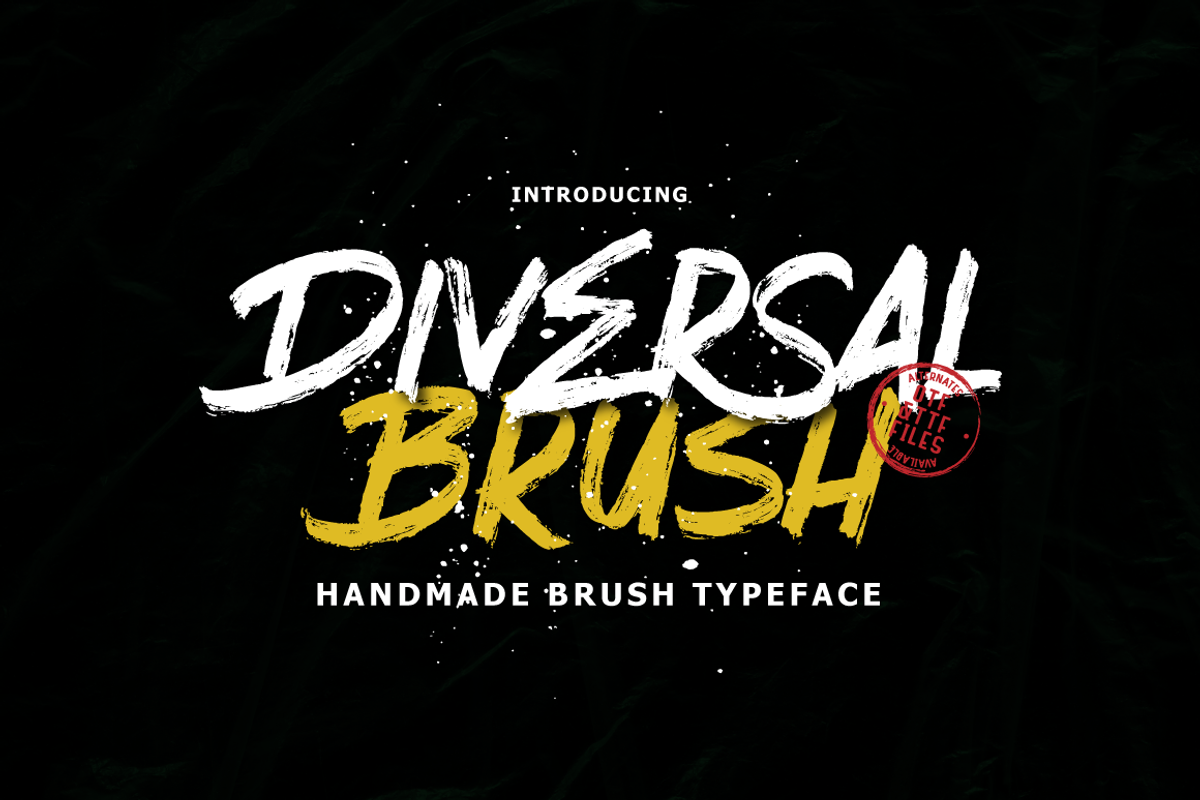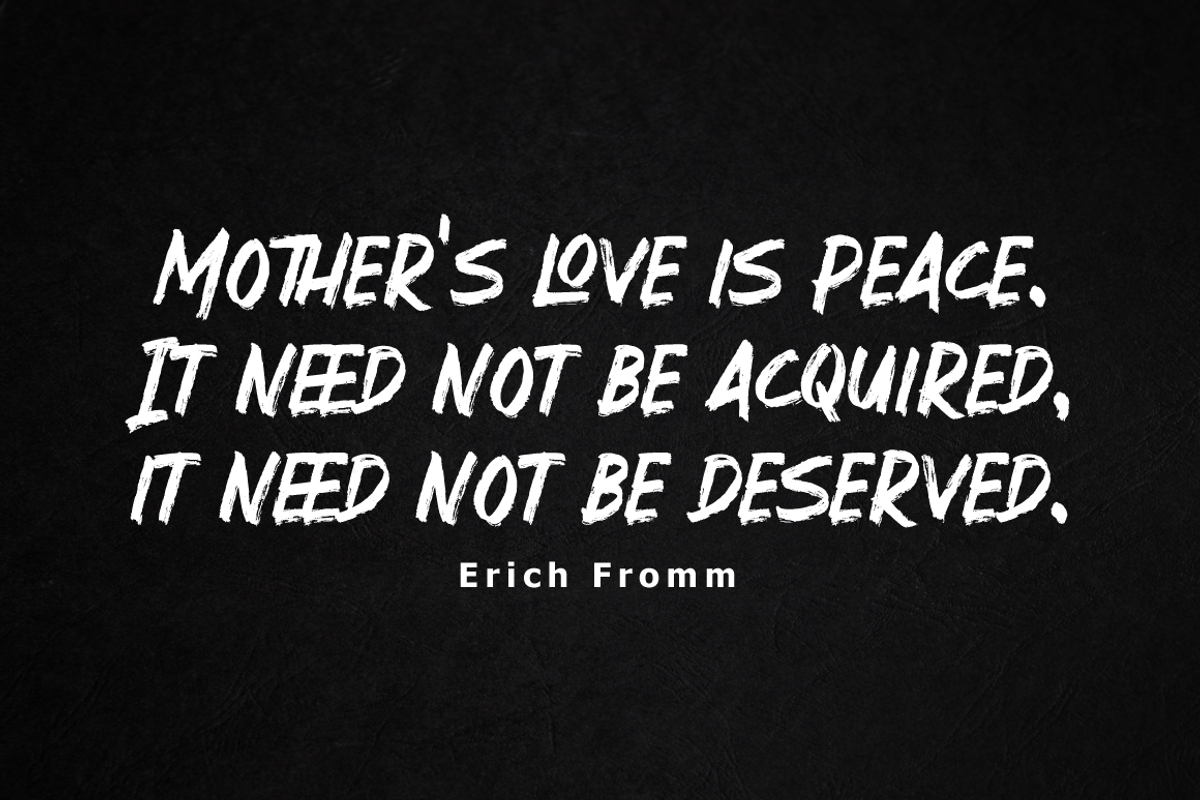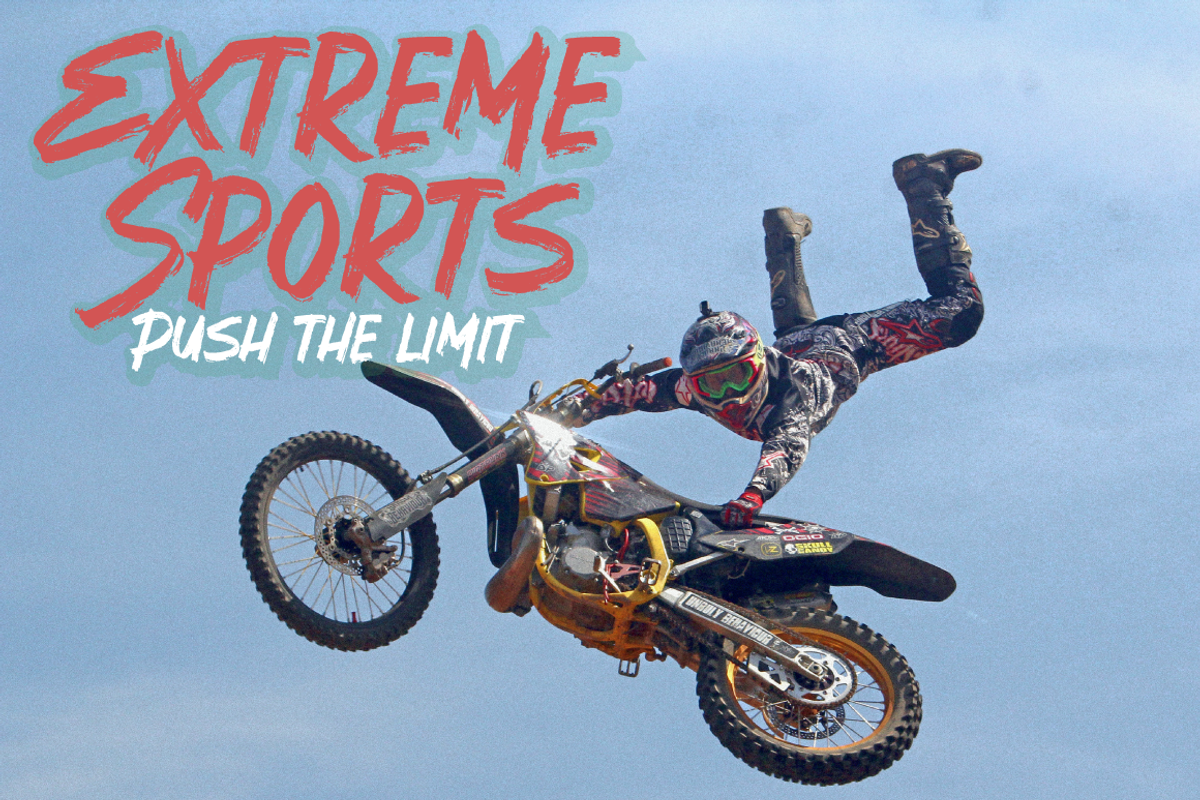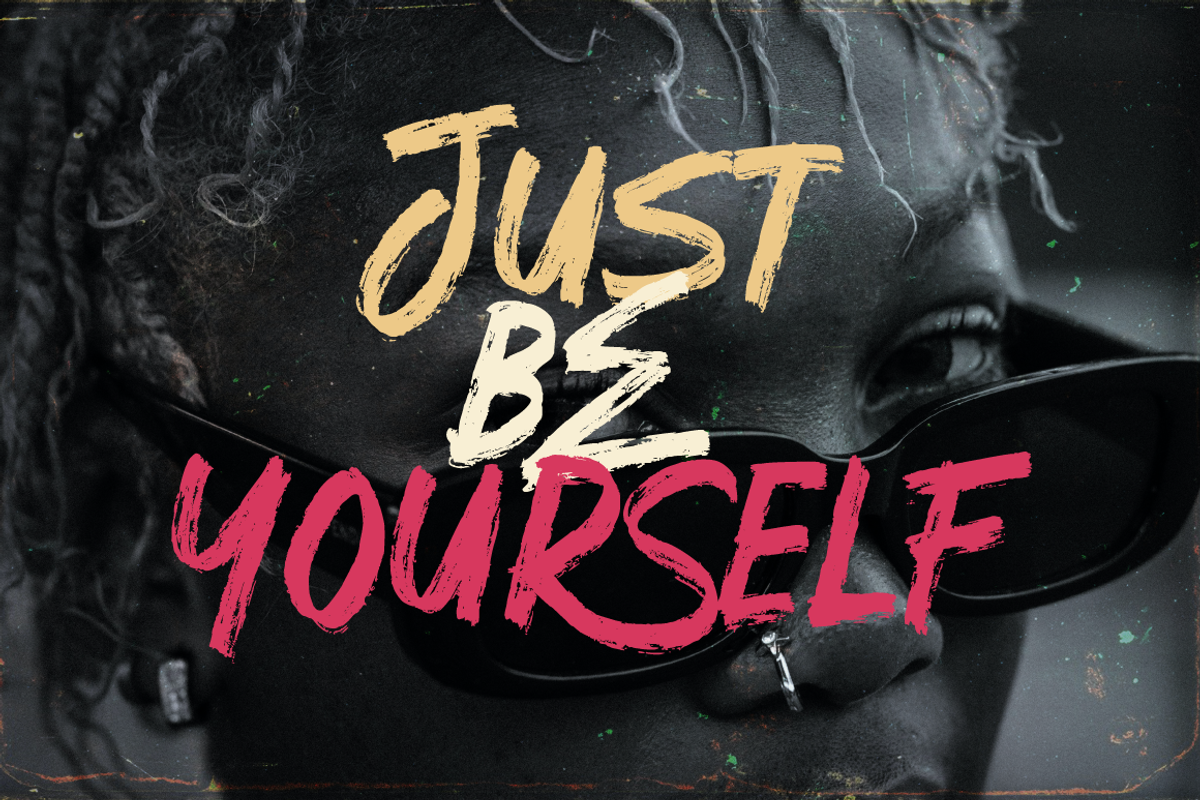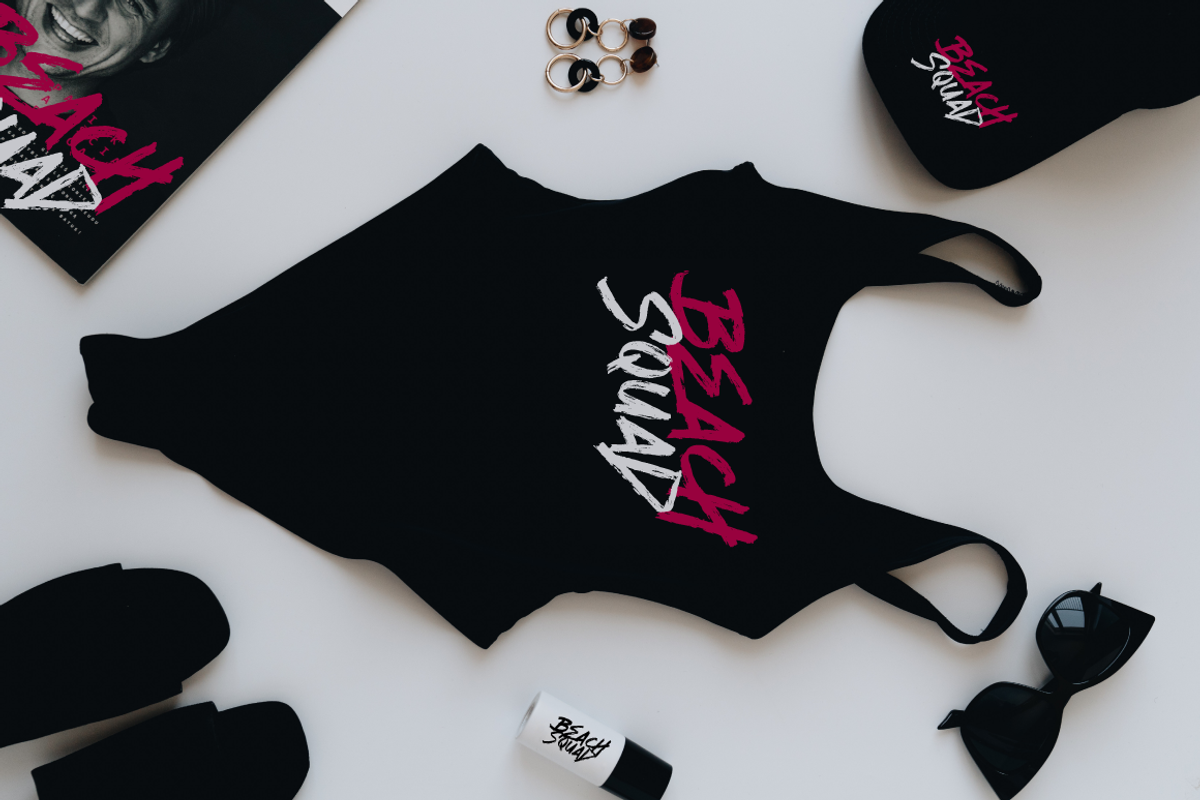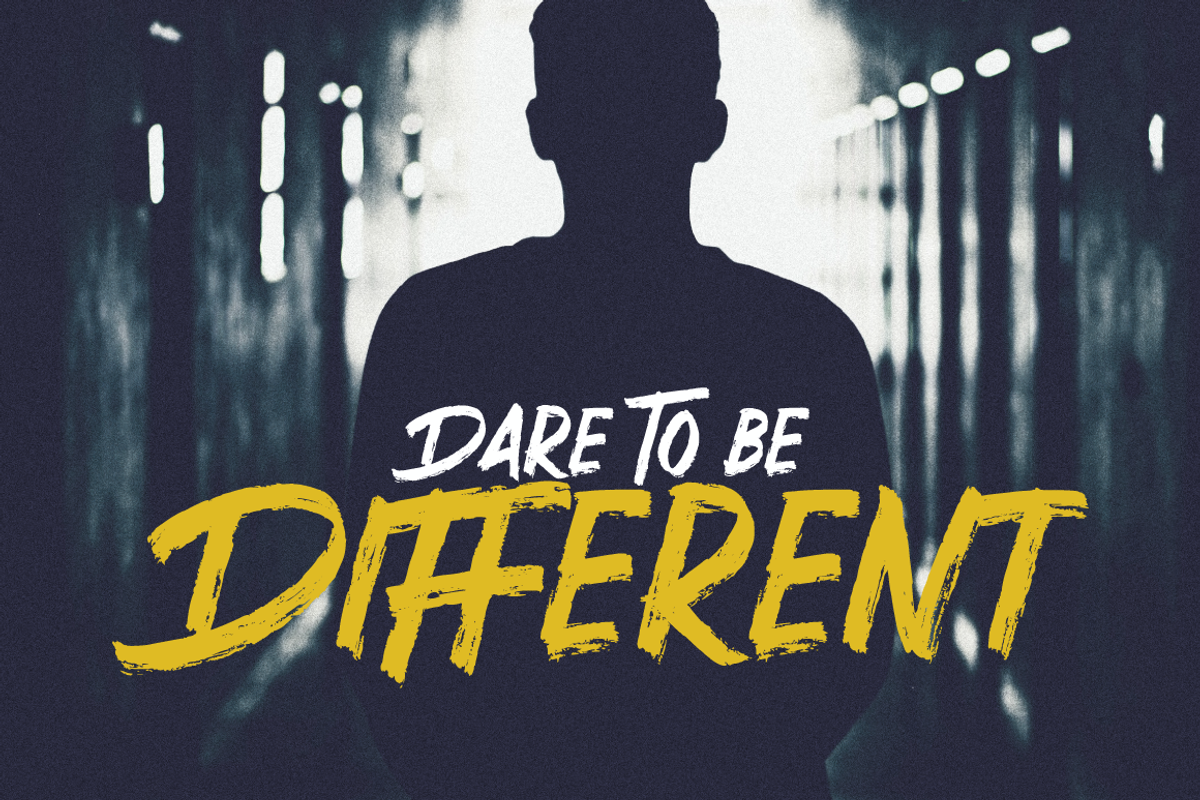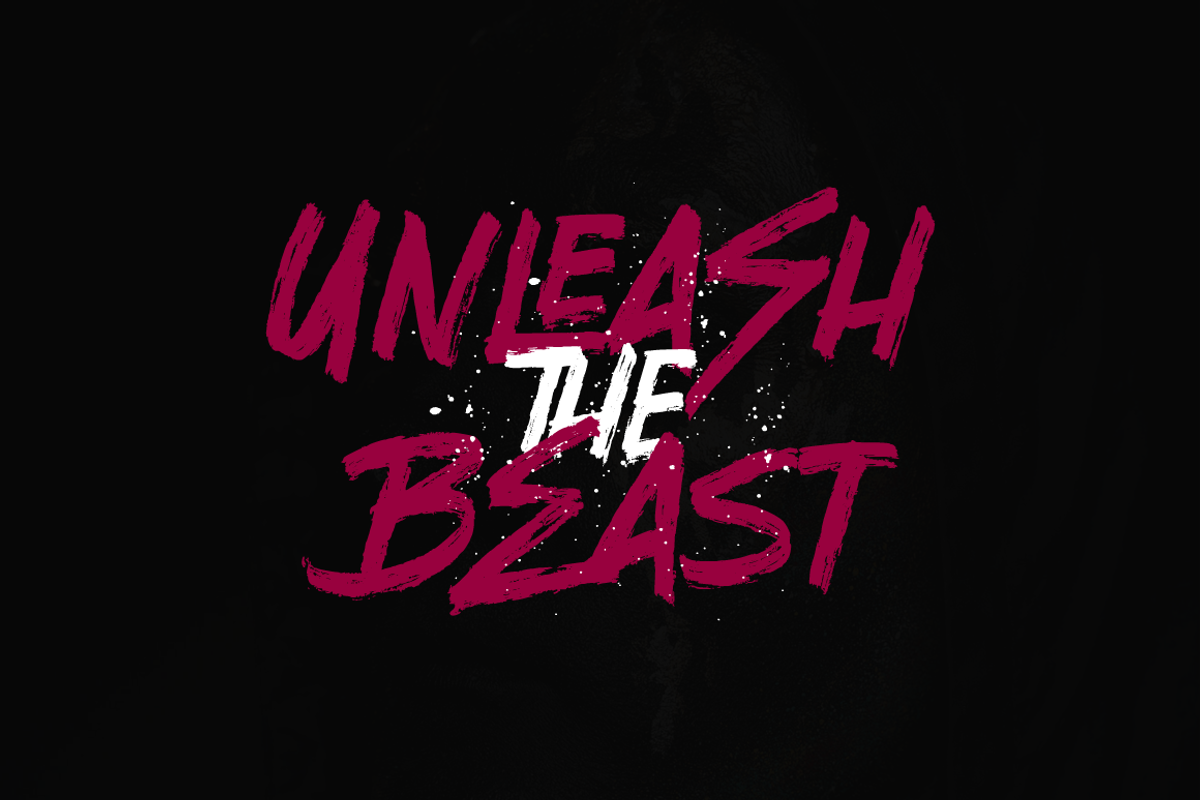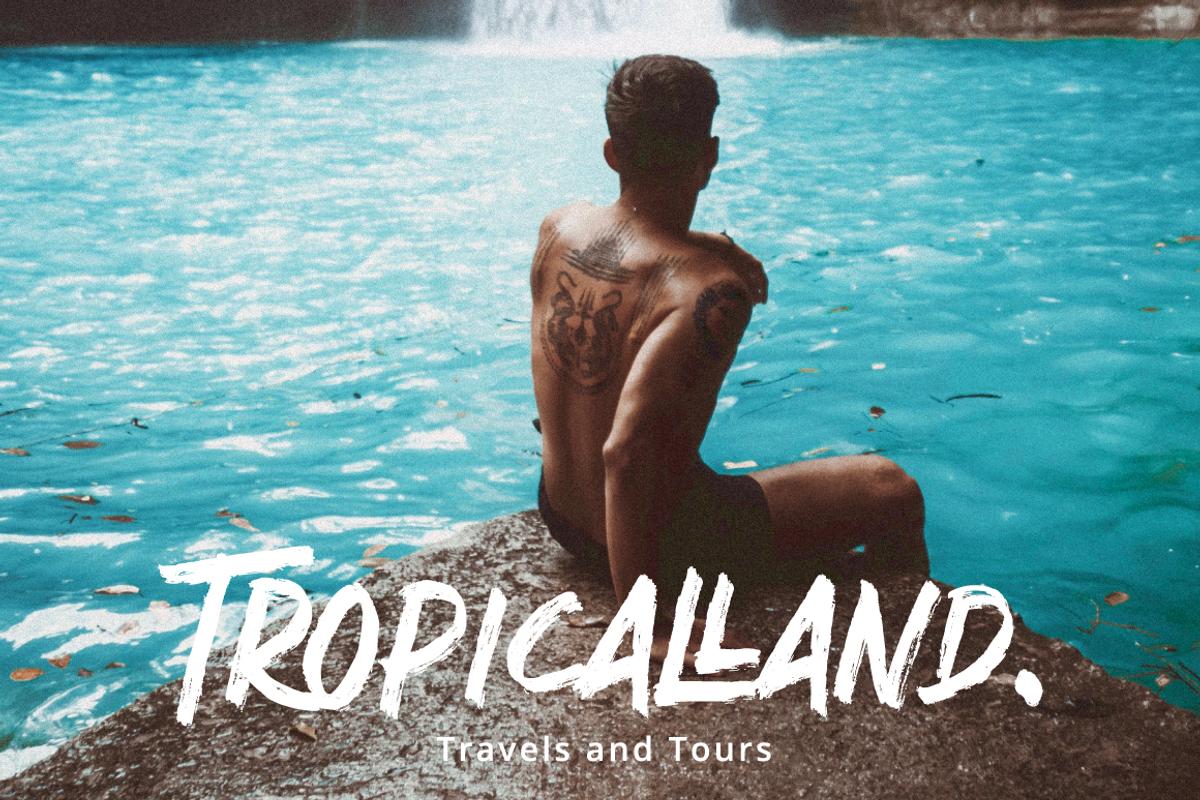
Diversal Brush
Introducing Give your designs an authentic brush handcrafted feel. “Diversal Brush Font” is perfectly suited to stationery, logos and much more.